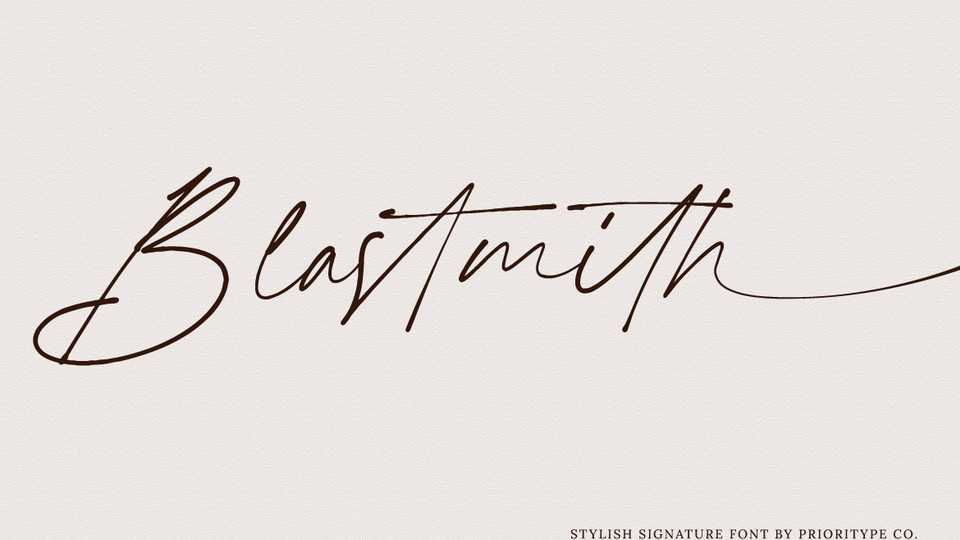
Download Blastmith font, a modern and stylish typeface with signature-like look. Blastmith is suitable for invitation design, branding, quotes, business cards or social media posts.
Designer: Prioritype Co